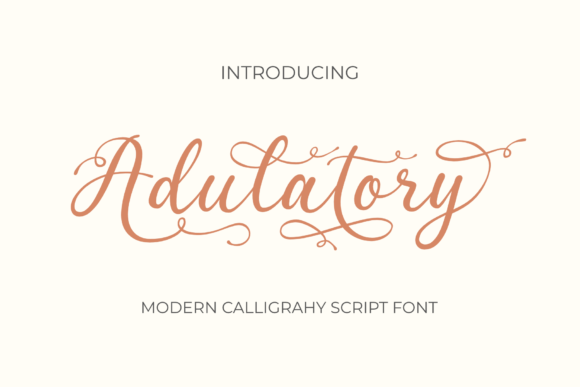
Journey into the realm of elegance and sophistication with Adulatory Font, a script font that exudes class and timeless charm.
Unleash your creativity and let your designs flourish with this captivating calligraphy script, meticulously crafted to infuse your projects with a touch of grace and visual allure. Immerse yourself in a world of captivating aesthetics and turn your creative visions into breathtaking realities.
Discover endless possibilities as you explore the depths of Adulatory's unique and distinctive style. Its graceful strokes, elegant curves, and impeccable flow will leave you spellbound, inviting you to craft designs that resonate with beauty and sophistication.
Effortlessly create stunning wedding invitations, heartfelt greeting cards, enchanting logos, and captivating social media graphics that leave a lasting impression. Adulatory's versatility extends beyond traditional calligraphy, seamlessly adapting to a myriad of design genres, from vintage and retro to modern and contemporary.
Embrace the ease and convenience of Adulatory's PUA encoding, allowing you to effortlessly access a treasure trove of glyphs and swashes, unlocking a world of creative possibilities at your fingertips. Unleash your imagination and elevate your designs to new heights with this exceptional font.
Adulatory Font, a symphony of elegance and functionality, awaits your creative touch. Embrace its timeless beauty and embark on a journey of artistic exploration, transforming your designs into works of art that captivate and inspire.